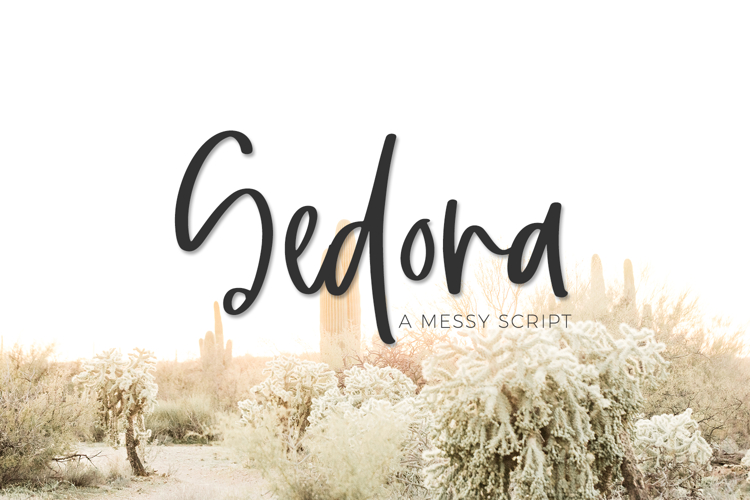
Introducing Sedona, a handwritten signature style script with alternates and ligatures.
Sedona is best for:
- website design + website accents - think travel blogs, fashion blogs, & more
- 26 lowercase alternate characters
- 9 ligatures - at, bb, gg, ll, oo, rr, ss, th, tt